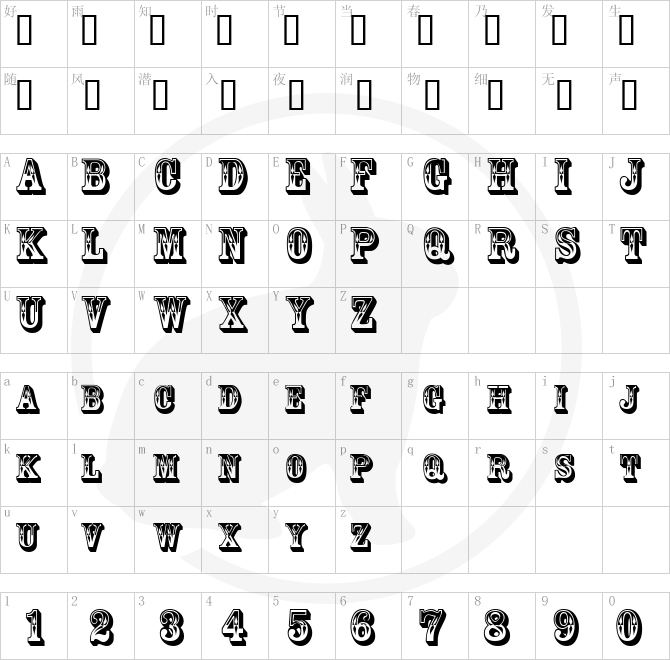
- Font Name:3-DGoldRush
3-DGoldRush.ttf is a very beautiful artistic font, 3-DGoldRush.ttf is widely used in the design and printing of various books and pictures,3-DGoldRush.ttf has a strong visual impact,3-DGoldRush.ttf is a commonly used font in newspapers, magazines and books, and is used in posters, e-commerce Poster design, store design, logo design, font design and other fields.3-DGoldRush.